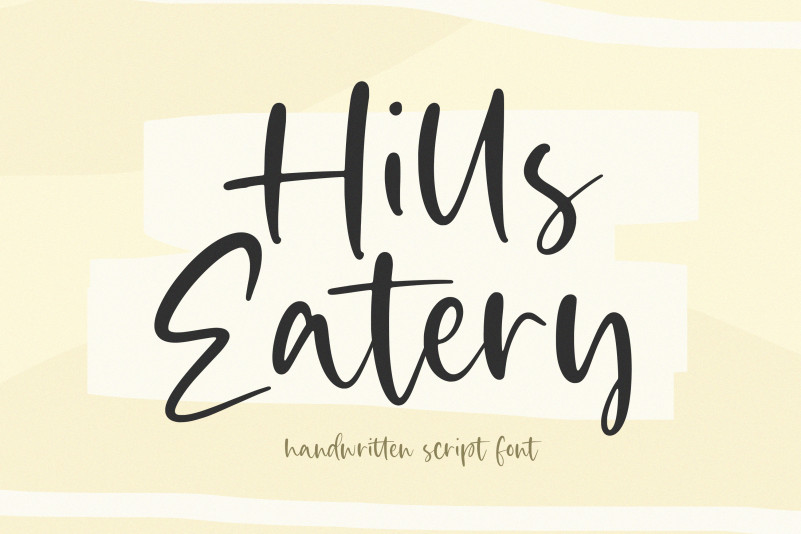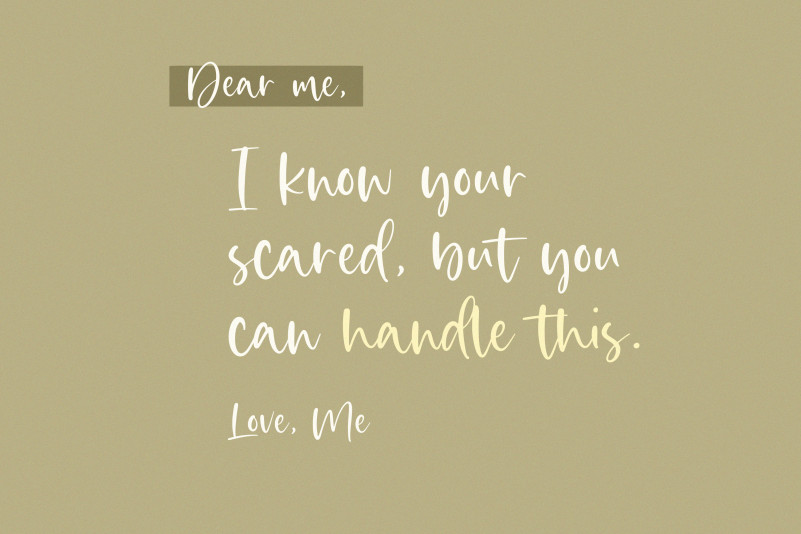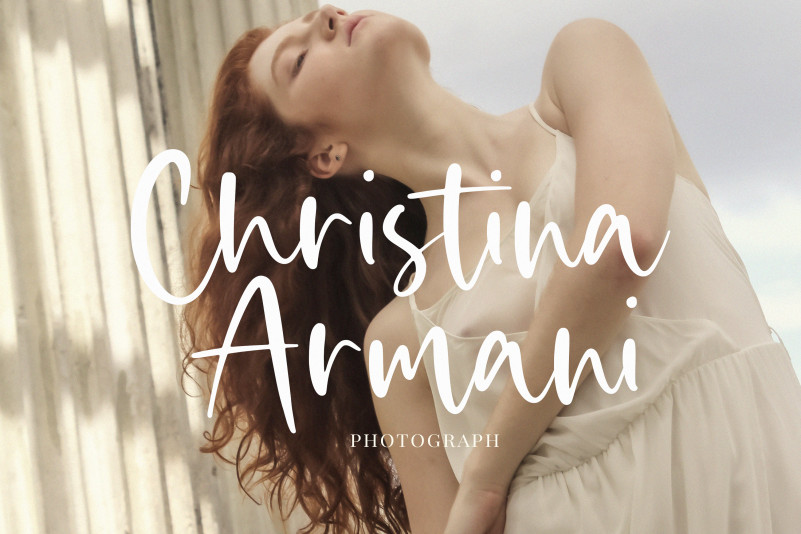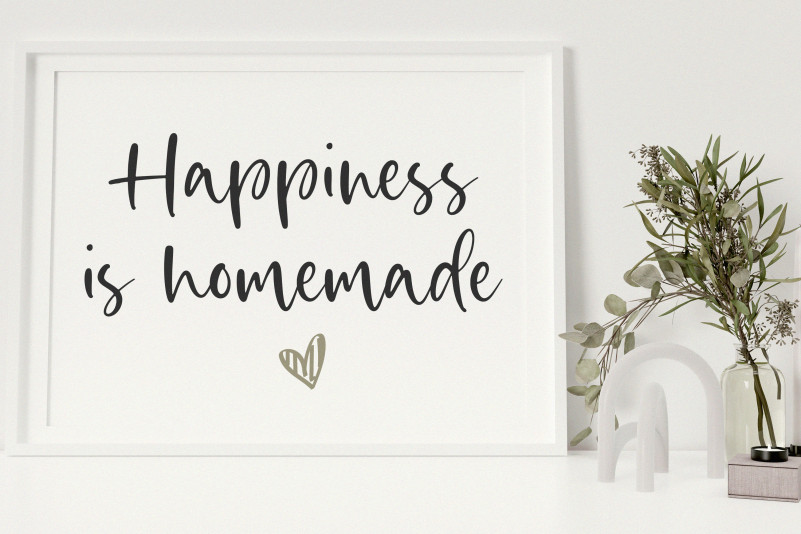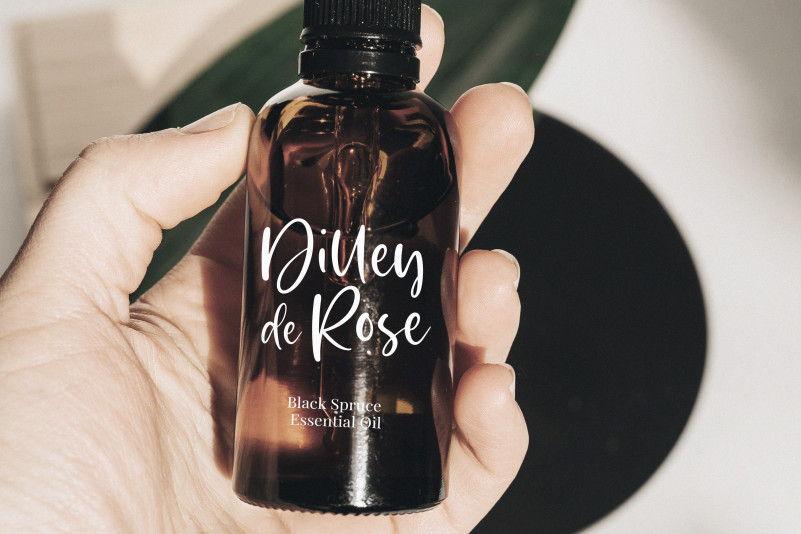
Hills Eatery Font
Hills Eatery Script Font that is modern and fresh, and will bring a warm and inviting feel to your business. Take advantage of the fonts and experience the magic for yourself.
Hills Eatery is perfect for product packaging, branding project, megeenazine, social media, wedding, or just used to express words above the background.
Hills Eatery Font Features premium :
-Full Set of standard alphabet and punctuation
– Hills Eatery also multilingual support.